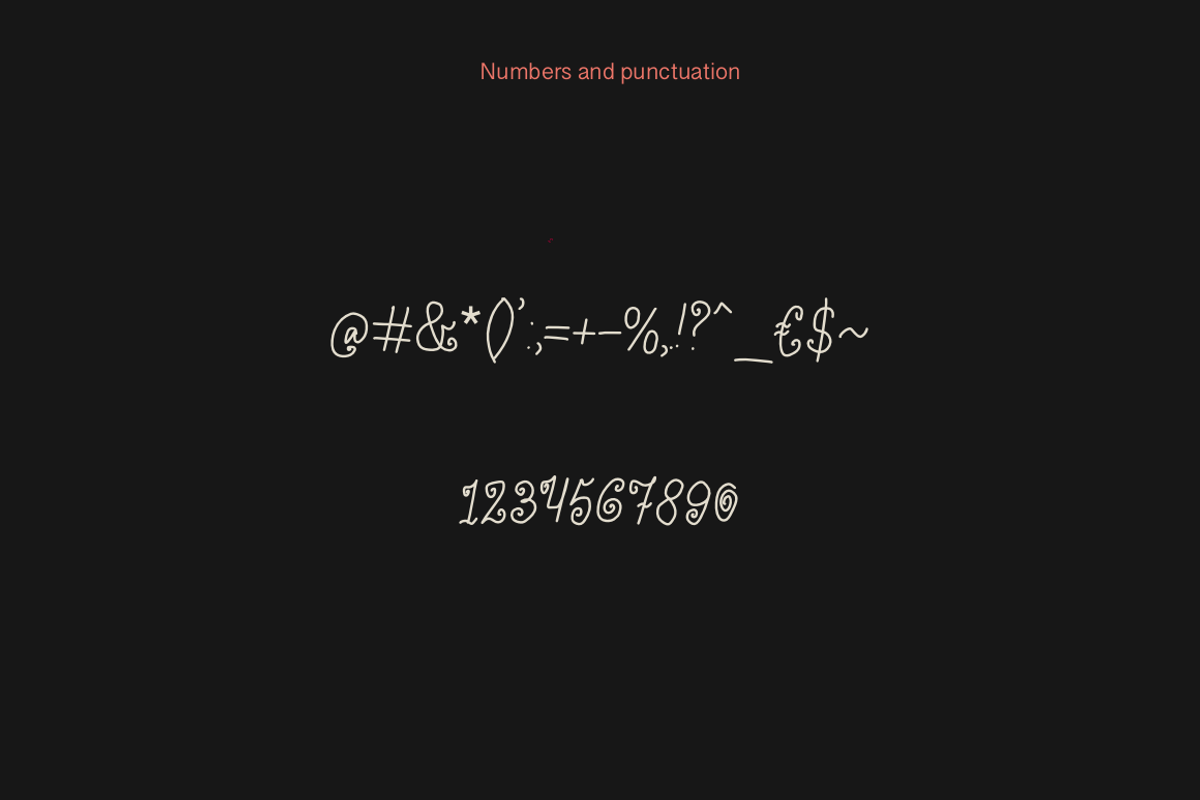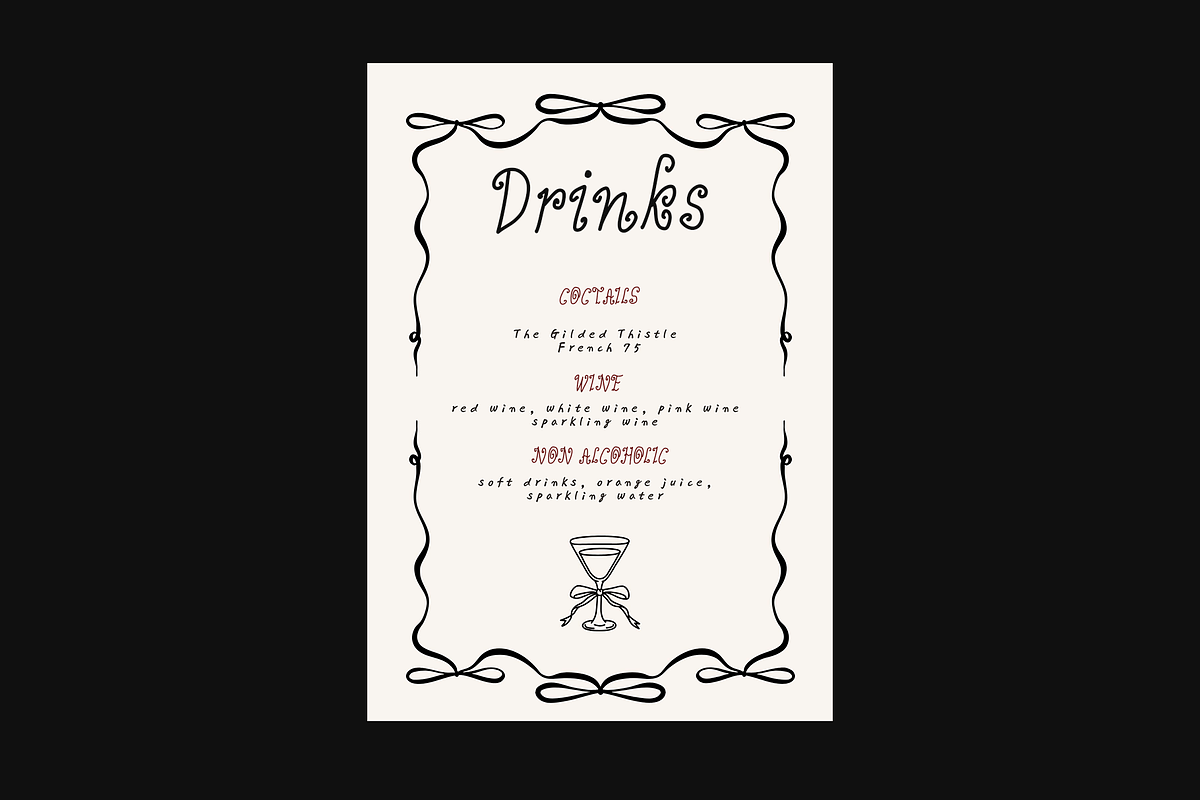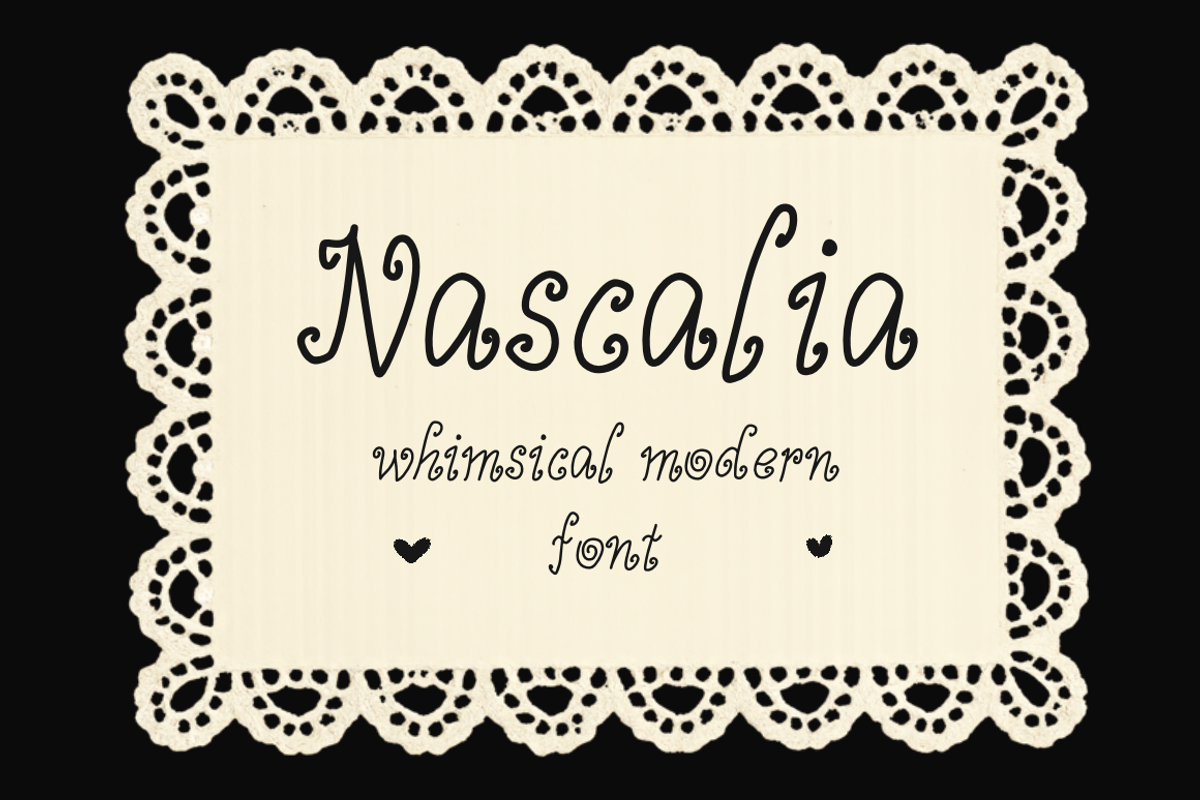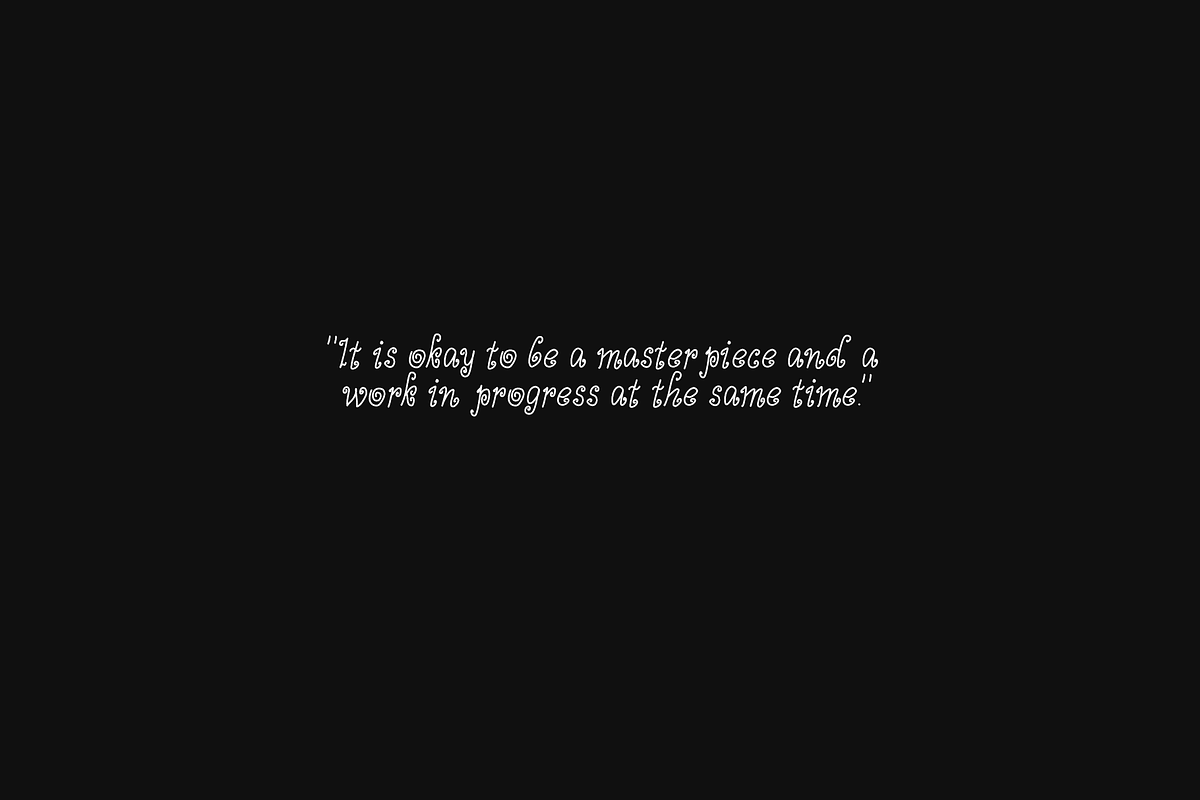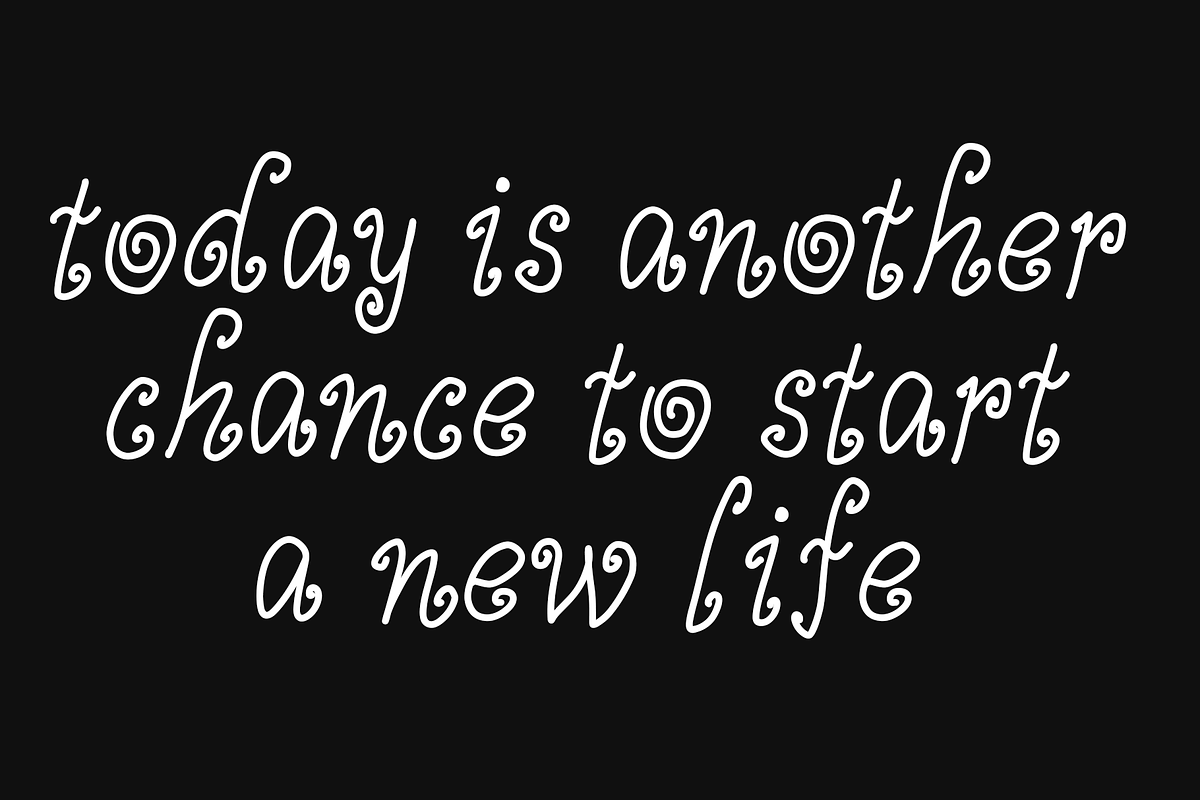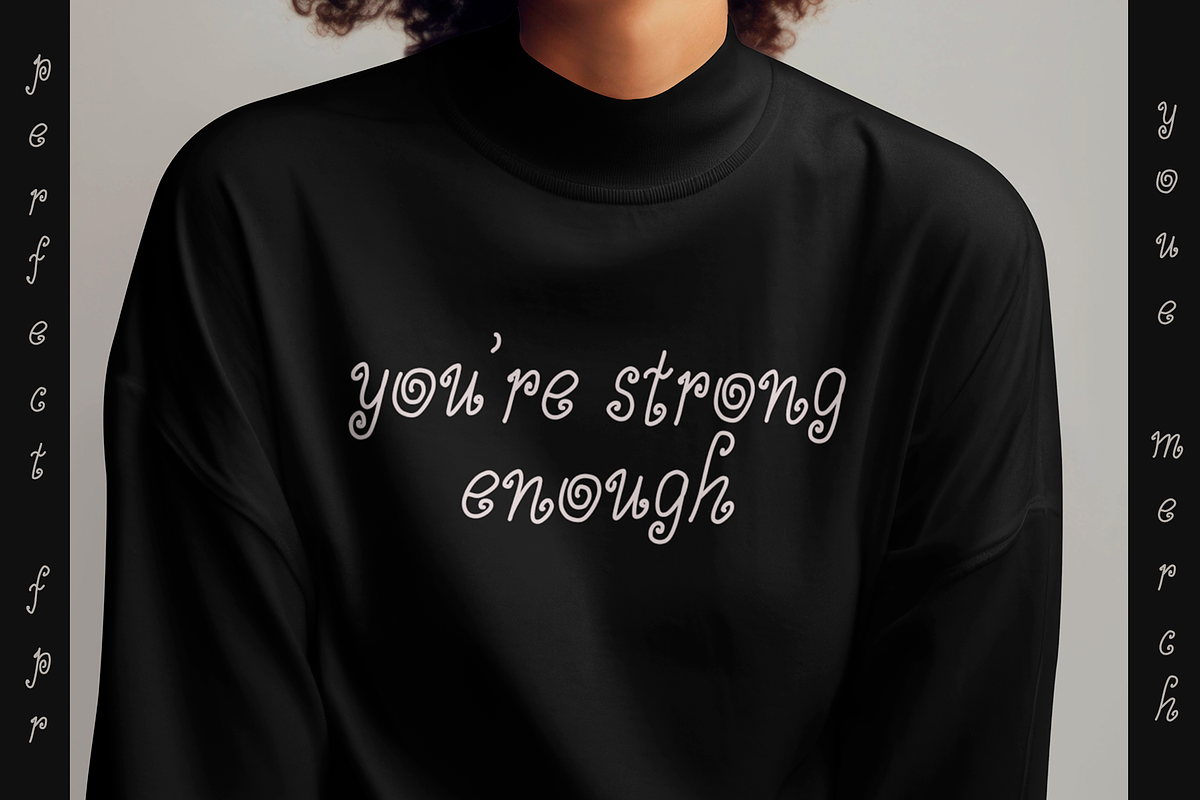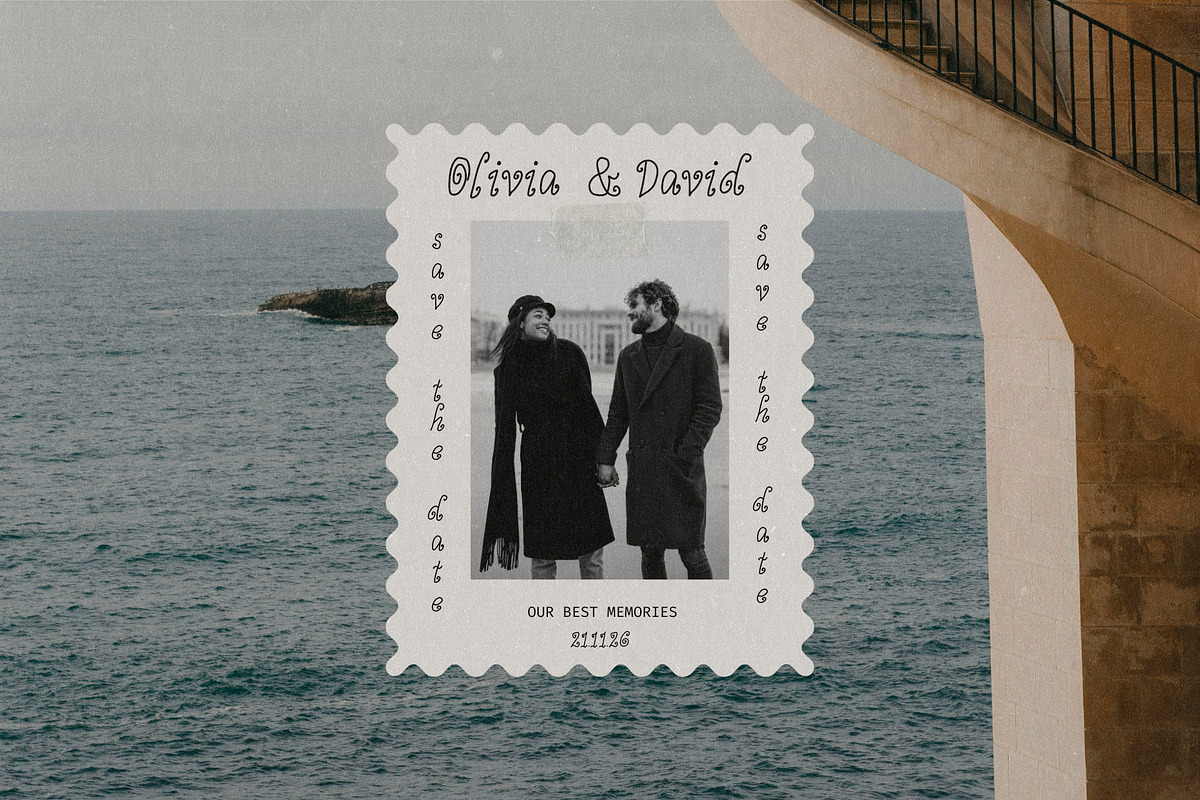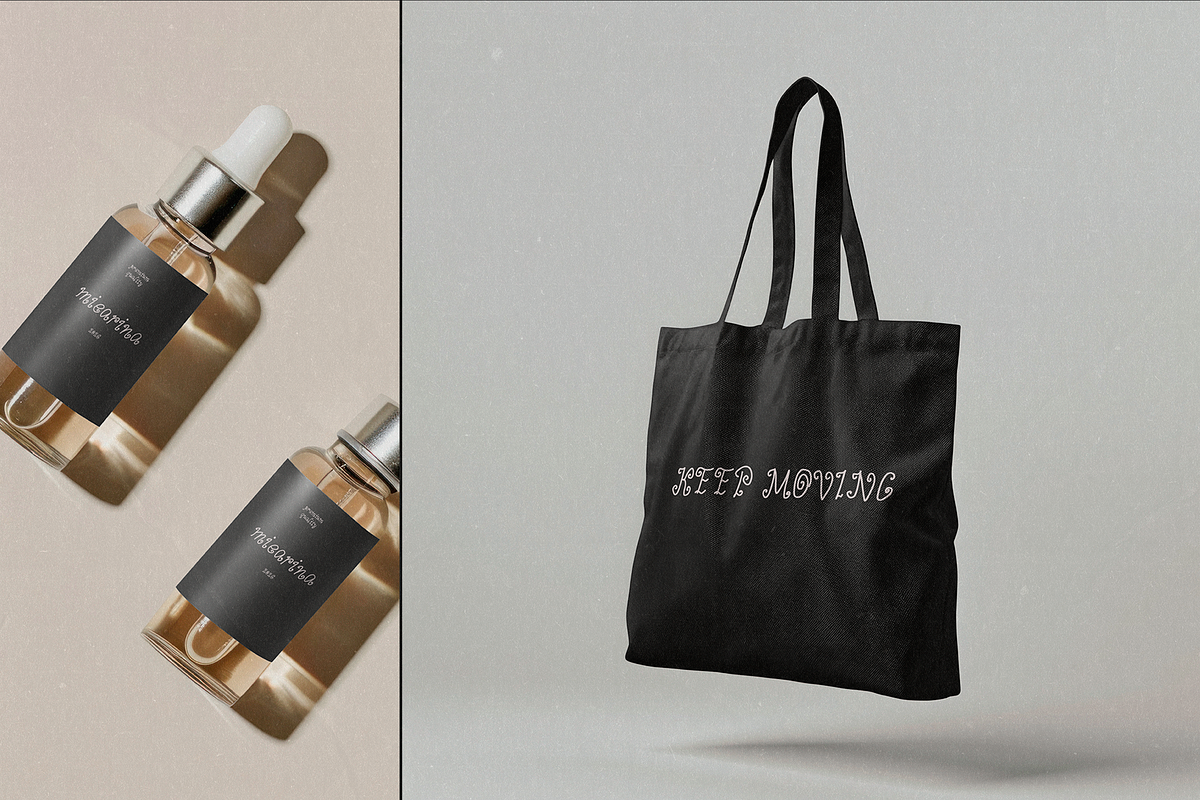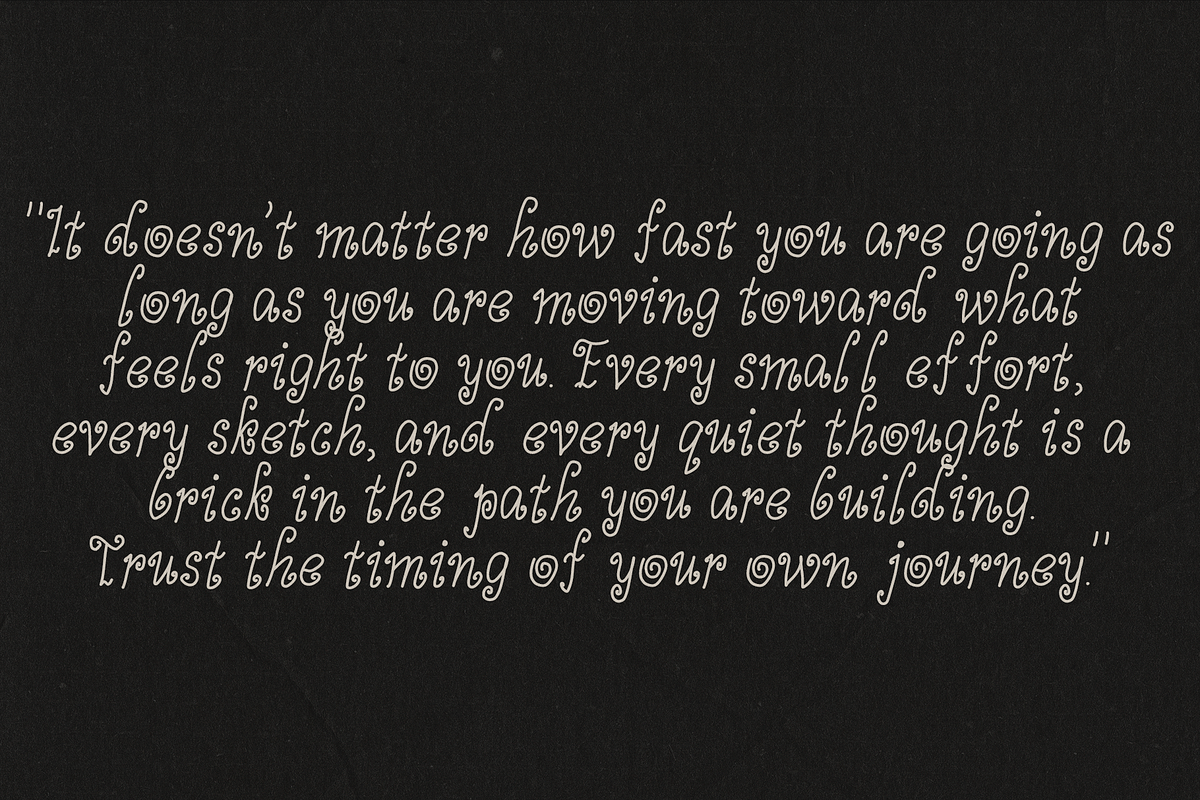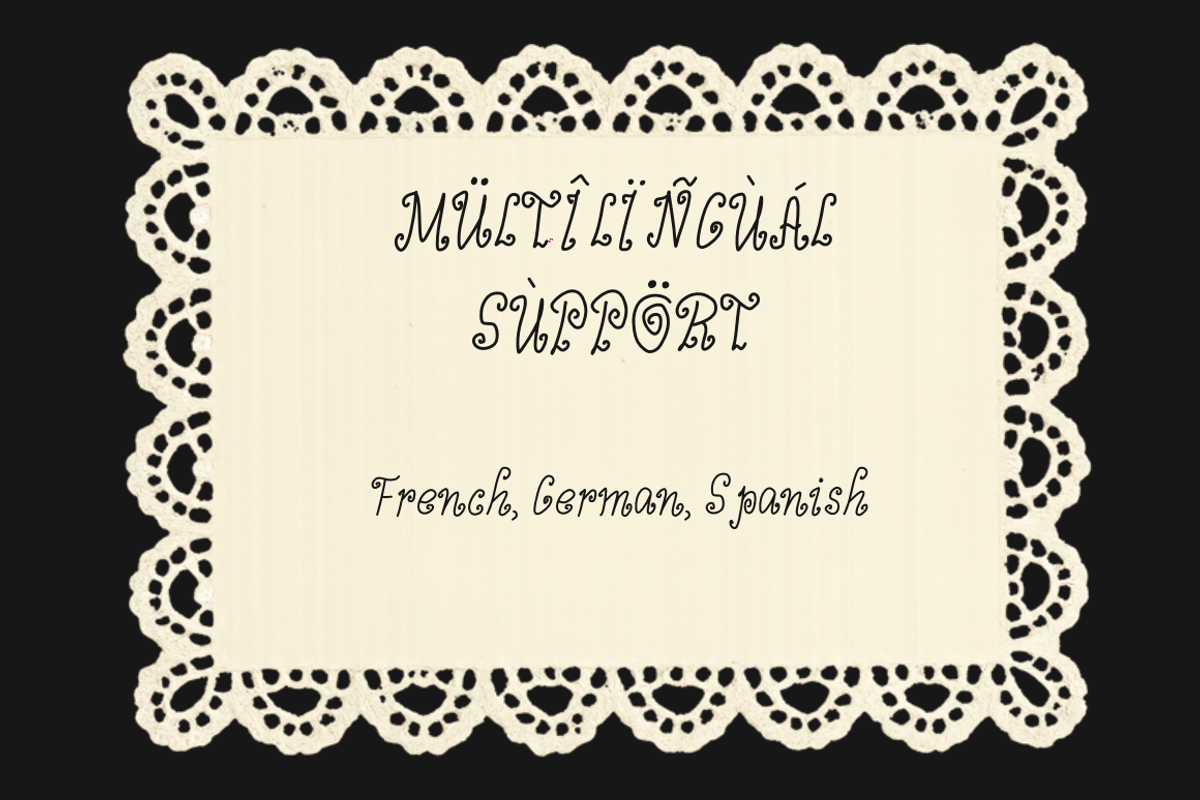
Nascalia whimsical handwritten font
Whimsical Elegance with Every Swirl
Perfect For: • Events & Occasions: Romantic wedding invitations, birthday cards, and baby shower stationery. • Branding: Logos for florists, bakeries, handmade jewelry, and beauty boutiques. • Digital Content: Instagram quote graphics, YouTube thumbnails, and blog headers with a "cottagecore" or "whimsical" vibe. • Physical Goods: T-shirt designs, tote bags, and vinyl decals for craft enthusiasts.
Quick Tip: Because of the distinct "curlicue" style, this font performs exceptionally well in high-contrast pairings. Try using it for your main headline and pairing it with a very simple, clean sans-serif for the body text